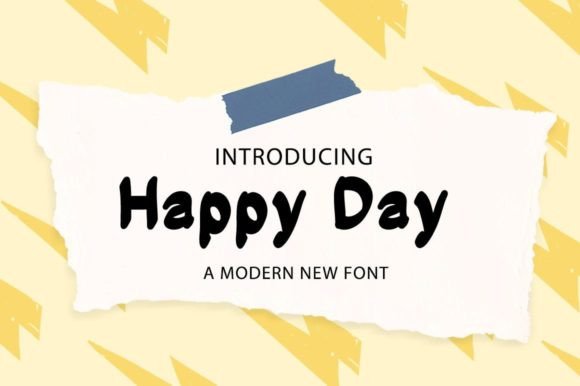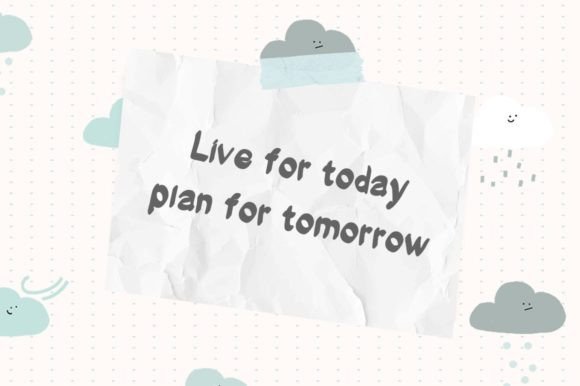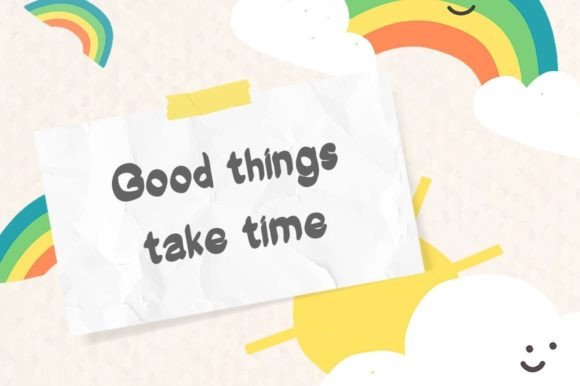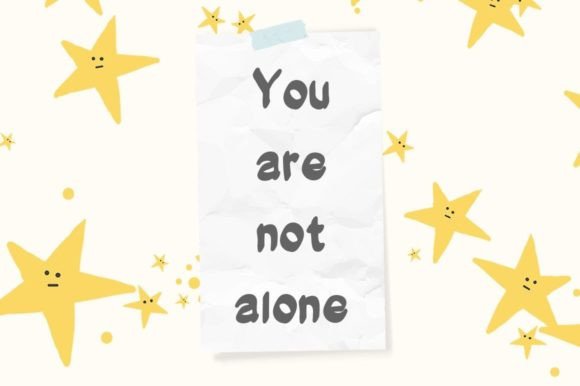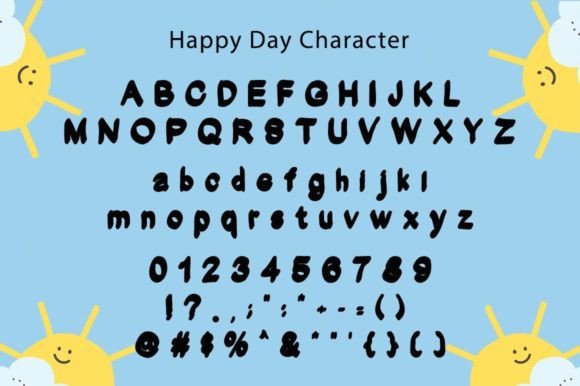
About Happy Day Font
“Happy Day” isn’t just a font; it’s a playfully handmade typeface designed to infuse a sense of joy into your designs. This display font delivers a playful handwritten style that adds a special touch to any creative idea you can imagine. Crafted to become a true favorite, “Happy Day” has the potential to elevate each of your creative projects to the highest level.
The playfully handmade and playful qualities of “Happy Day” make it an excellent choice for designs that require a lighthearted and cheerful vibe. Imagine it adding that special playful touch to your various design ideas.
Envision “Happy Day” gracing your projects, contributing to a design that is not only visually appealing but also exudes a sense of joy and creativity. The handwritten style of this font brings an authentic and personalized element to your designs.
For display purposes, “Happy Day” becomes a font that stands out with its playful and handmade charm. Its unique character adds a touch of whimsy, making your text more engaging and lively.
In any context that demands a playful and handwritten feel, “Happy Day” is the font that delivers. Let it be the key element that transforms your projects into cheerful and delightful expressions.
Whether you’re working on digital or print designs, “Happy Day” is a font that brings a playful and handmade vibe. Let it be the font that adds that special touch to your creative ideas, making them more memorable and enjoyable.
Let “Happy Day” be the playfully handmade font that brightens your designs, turning them into joyful and delightful expressions. Embrace its playful charm, and watch it bring a sense of joy and creativity to your various projects.